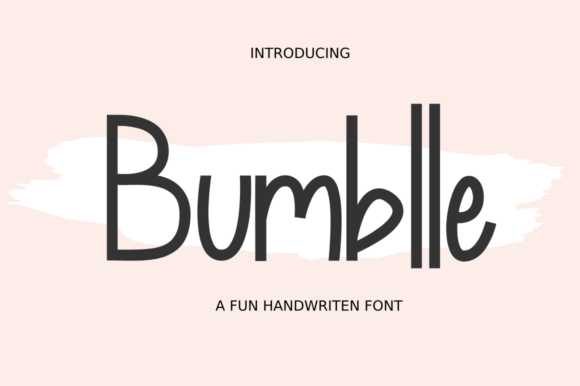
Introducing Bumblle Font, a delightful sans-serif creation by alanstudio99 that will add a touch of enchantment to your digital world. With its playful and whimsical nature, Bumblle Font is perfect for capturing the essence of joy, love, and lightheartedness.
Step into a world of imagination and creativity with Bumblle Font. Its unique quirks are sure to capture hearts, making it an exceptional choice for personal and commercial projects. Whether you're designing invitations, creating social media graphics, or crafting website designs, Bumblle Font will add a touch of magic to your creations.
With Bumblle Font, you can effortlessly convey messages of love, happiness, and cheer. Its charming personality is perfect for spreading positivity and cheer through your designs. Let your words dance with joy and delight as you craft captivating content that resonates with your audience.